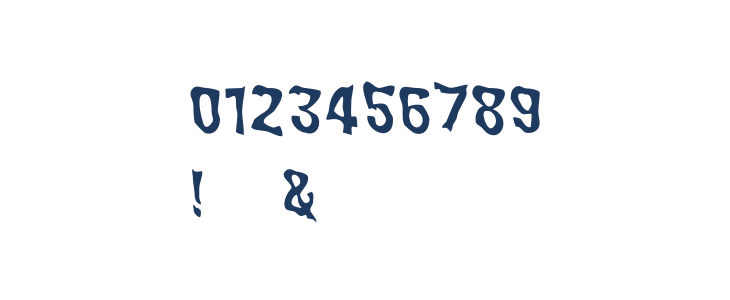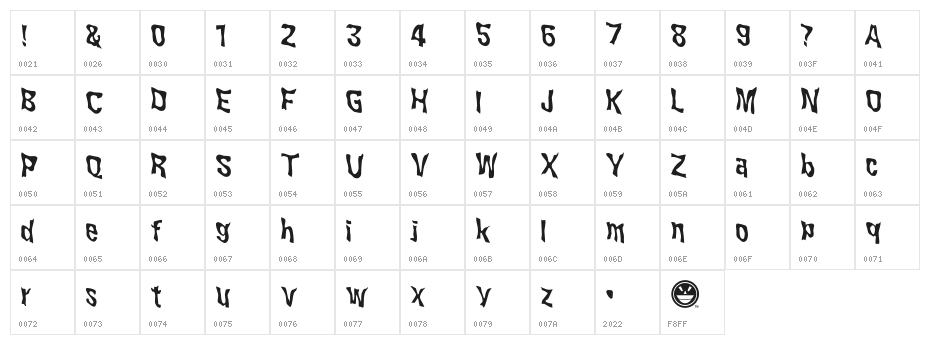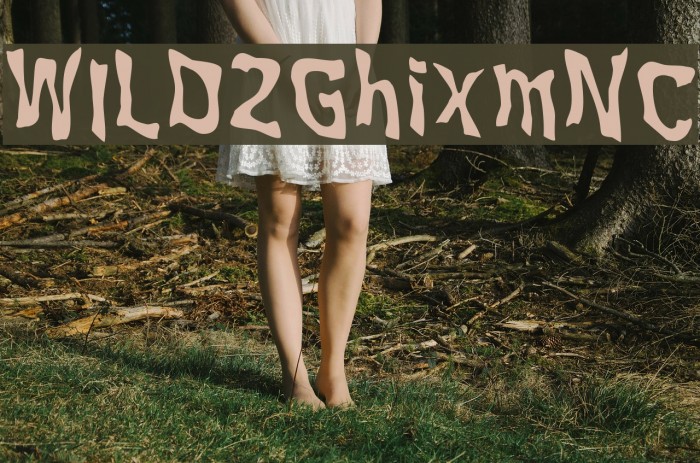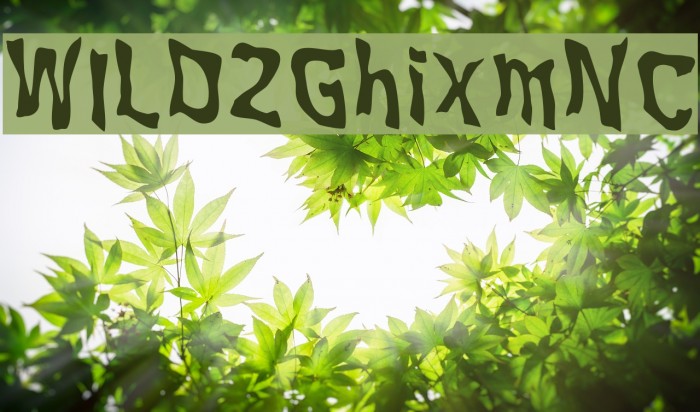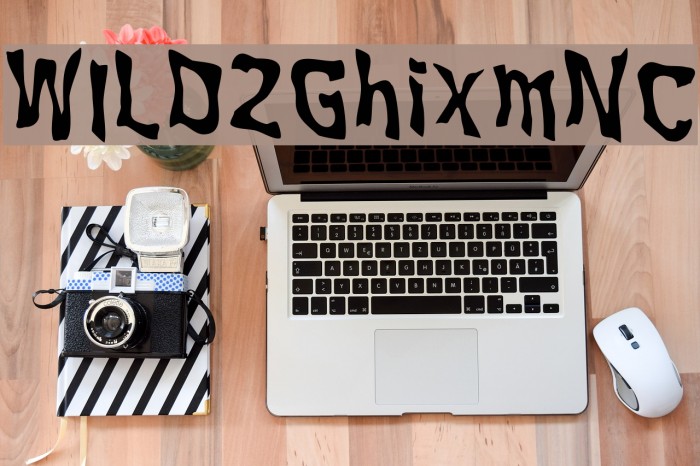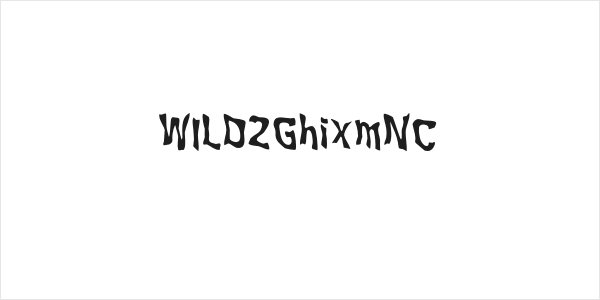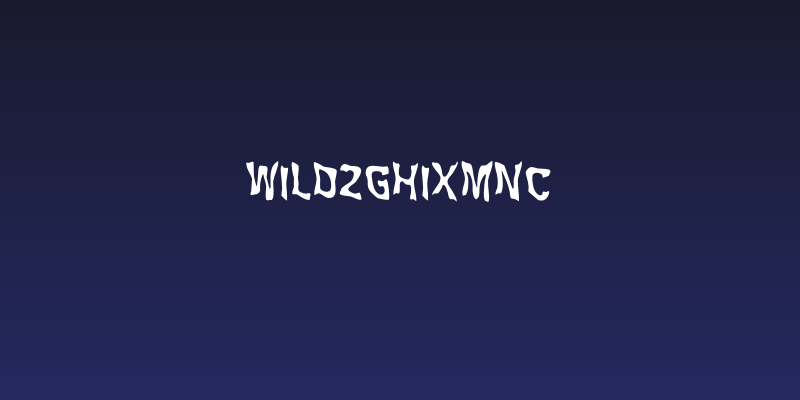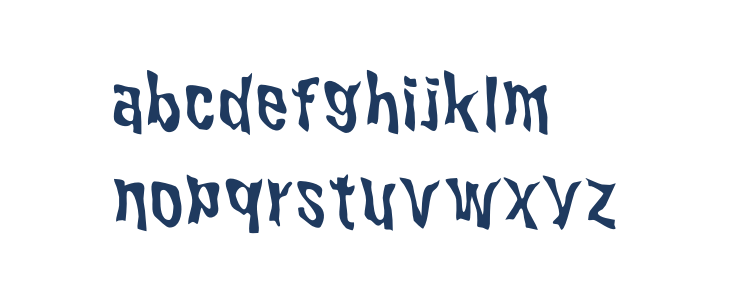
WILD2GhixmNC Font
WILD2GhixmNC Description
This font features an edgy and irregular design, with each character exhibiting a hand-drawn, organic appearance. The strokes are uneven, giving it a raw and dynamic feel. The uppercase and lowercase letters maintain a consistent style, with jagged edges and varying thicknesses that contribute to its unique character. Numbers and special characters follow the same aesthetic, ensuring a cohesive look across all glyphs. This font's distinctive style makes it stand out, perfect for projects that require a bold and unconventional look.